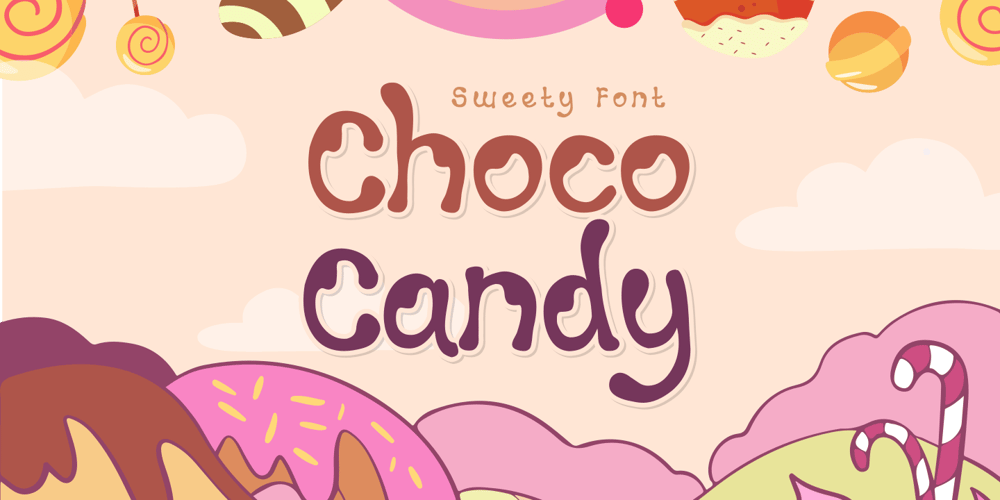
Choco Candy Font Family was designed by Zeenesia Studio and published by Zeenesia Studio. Choco Candy contains 1 styles and family package options. Introducing Choco Candy FontChoco Candy is sweety font. It can be used for branding, invitations, watermarks, advertisements, product designs,labels, product packaging, book content, quotes and more.It came with number & punctuation, multilingual support, and PUA encodeHope you like this product.